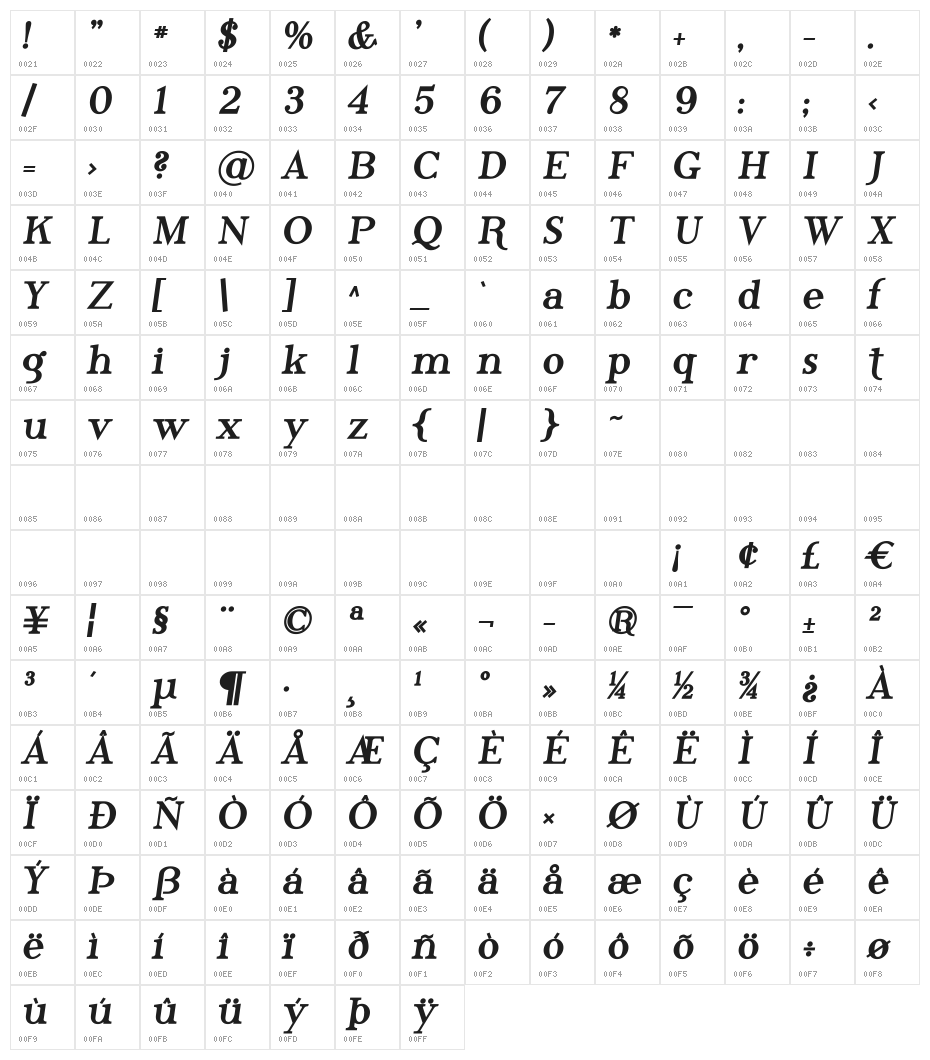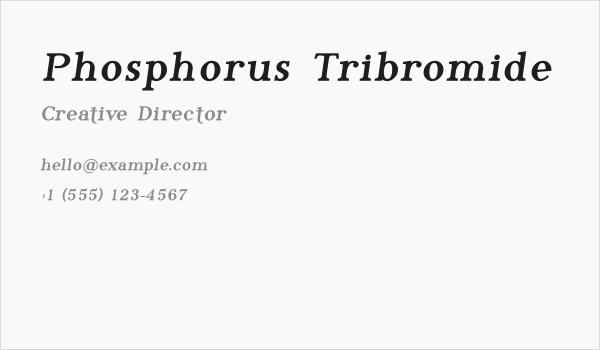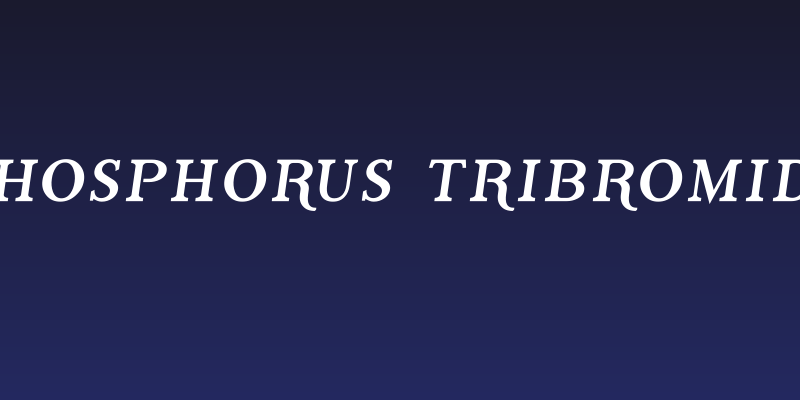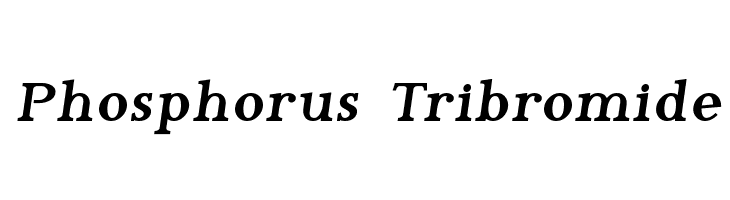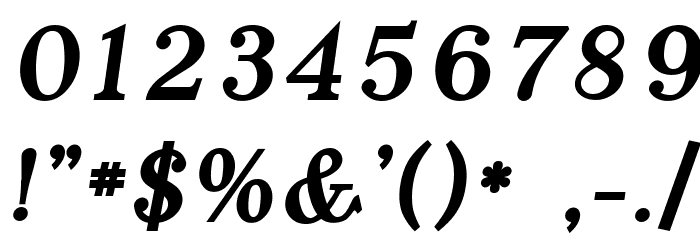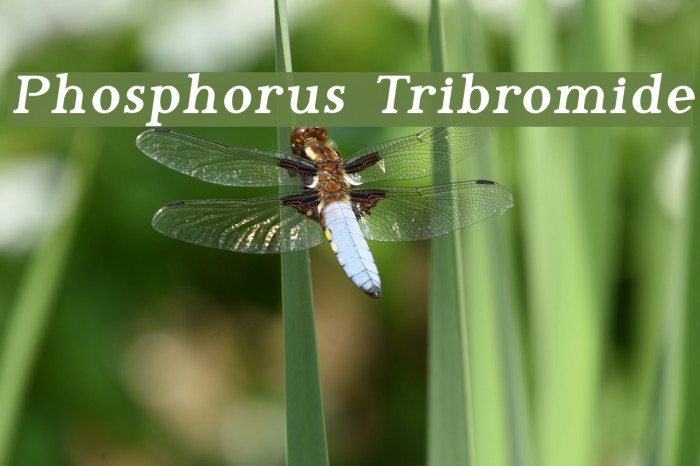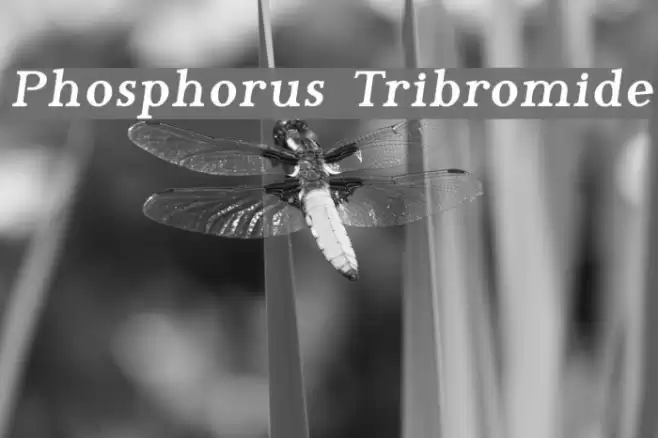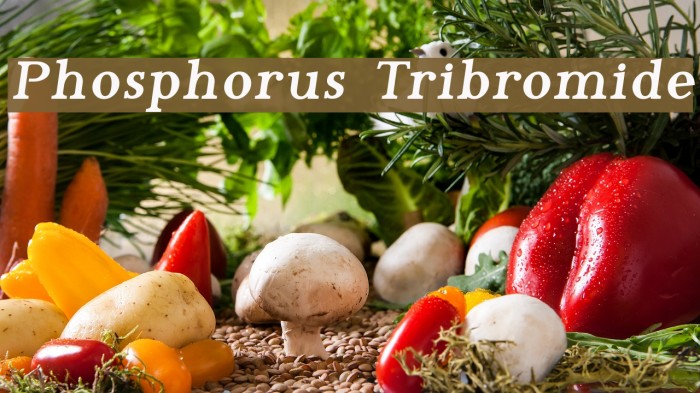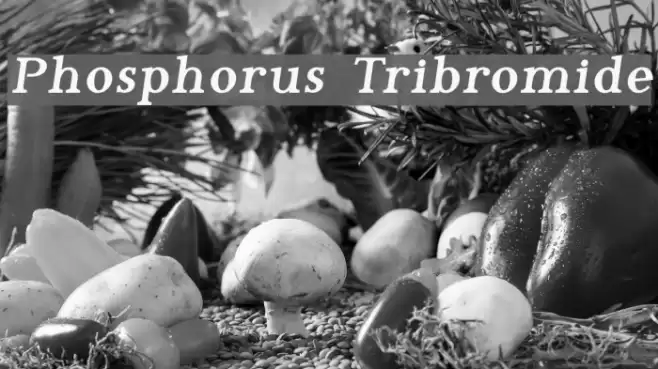
Phosphorus Tribromide Font
Phosphorus Tribromide Description
This font exhibits a classic serif style with a distinct elegance and sophistication. The characters are slightly italicized, giving them a dynamic and flowing appearance. The serifs are pronounced, adding a touch of tradition and formality. The uppercase letters are bold and commanding, while the lowercase letters maintain a refined and graceful look. Numbers are clear and easy to read, with a consistent weight throughout. Special characters are well-defined, ensuring versatility in various design contexts. The overall design is balanced, making it suitable for both formal and creative applications.
| Overall Style | Classic |
| Use Case | Headlines, Body text, Logos |
| Proposed Projects | Ideal for editorial design, book covers, formal invitations, and branding projects that require a touch of elegance. |